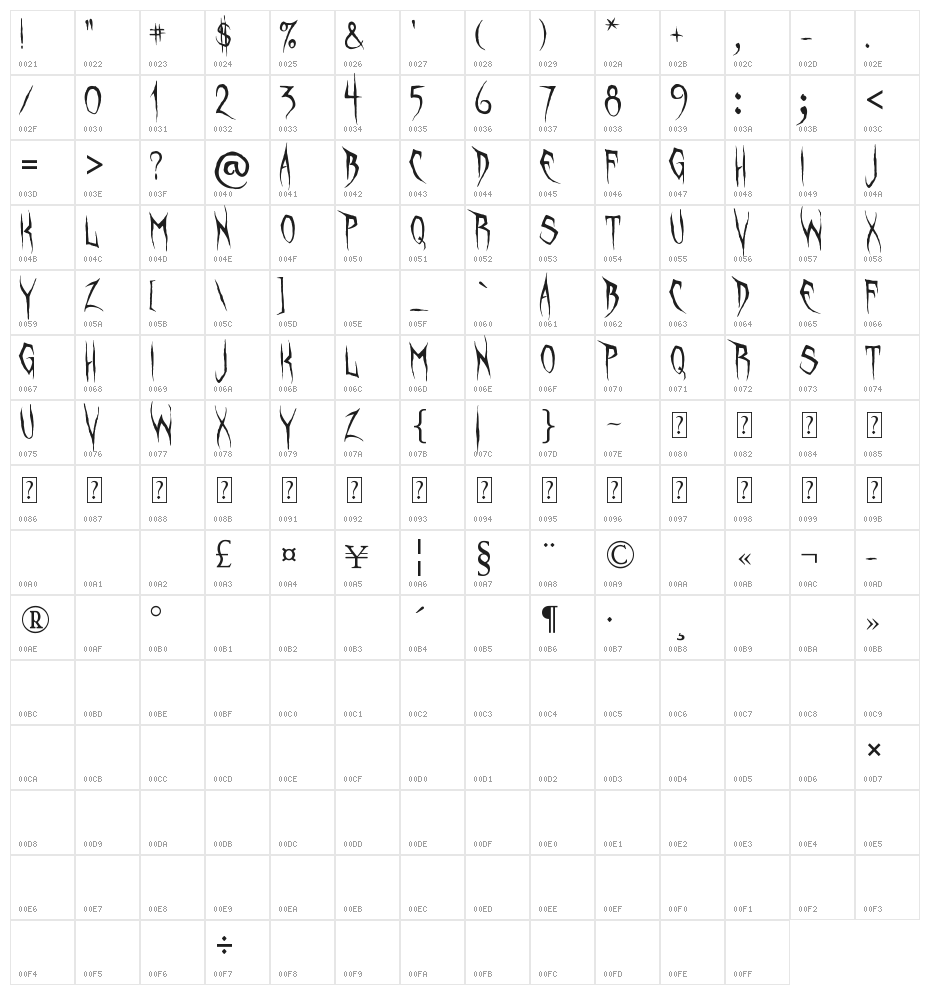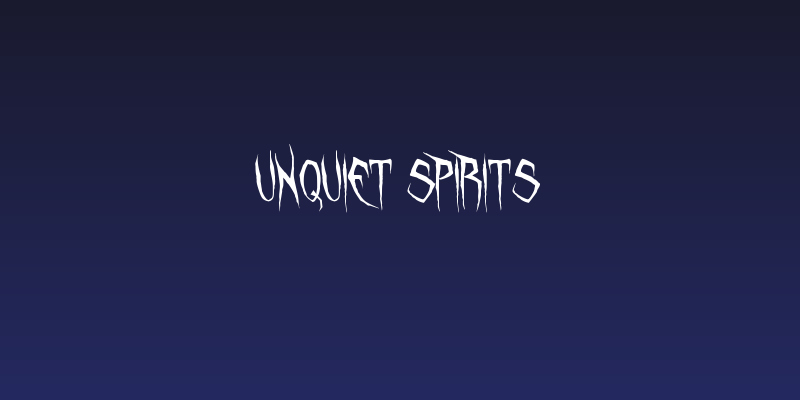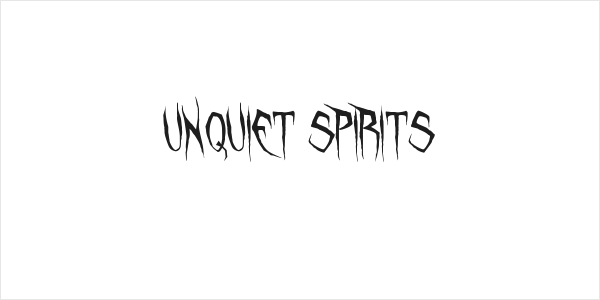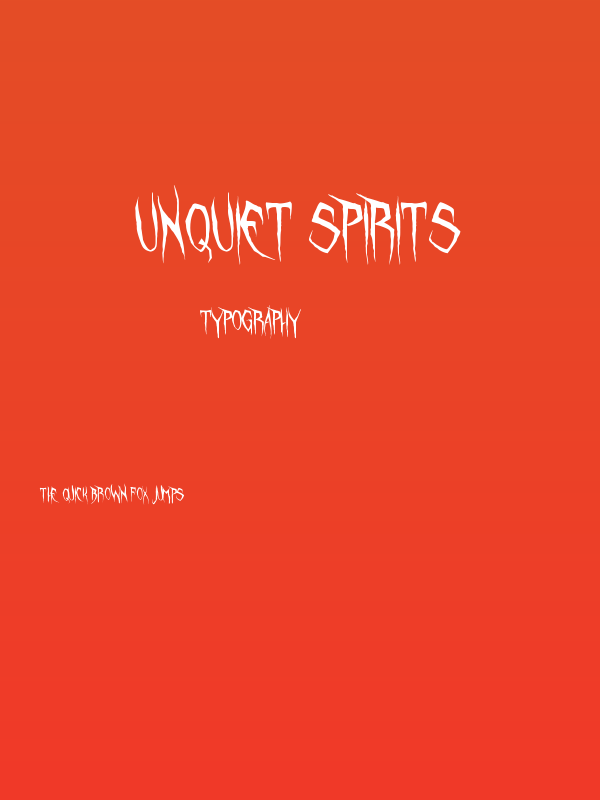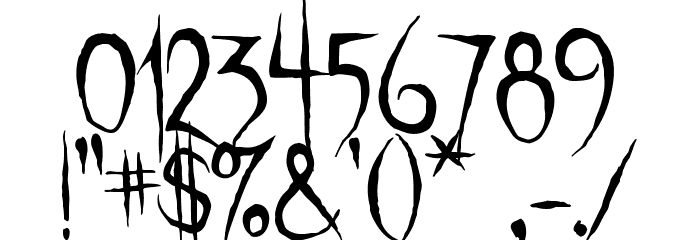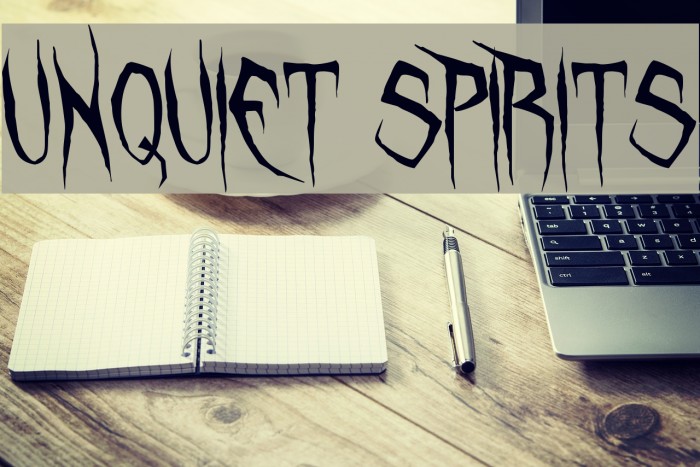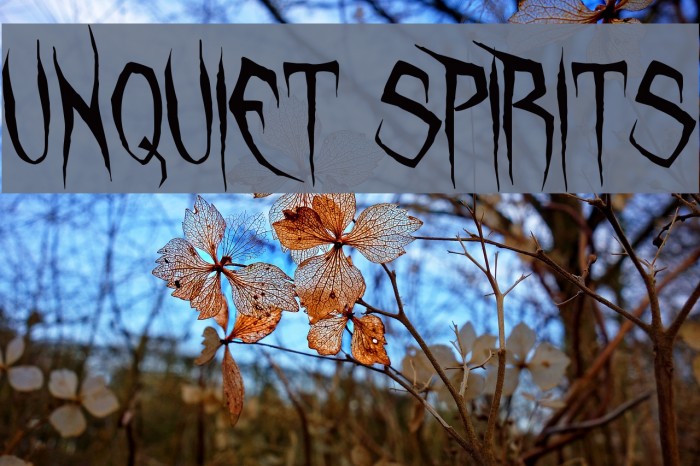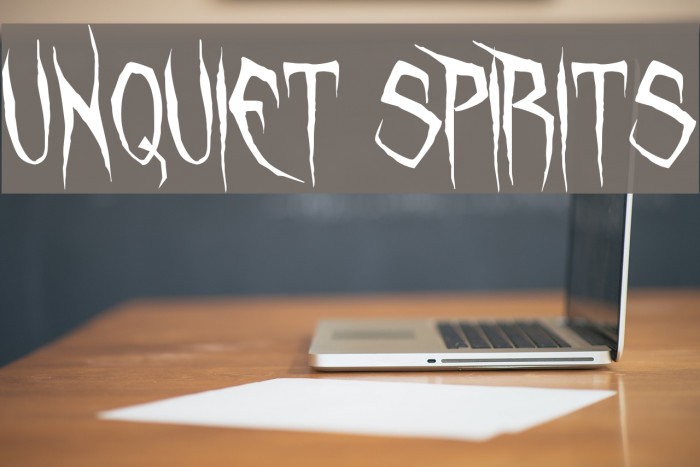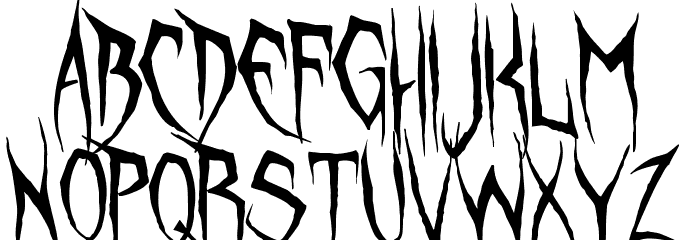
Unquiet Spirits Font
Unquiet Spirits Description
This font features a dramatic and eerie style, characterized by sharp, jagged edges and irregular strokes that evoke a sense of mystery and unease. The uppercase and lowercase letters maintain a consistent height, with elongated verticals and pointed serifs that create a striking visual impact. The numbers and special characters follow the same unsettling aesthetic, making them ideal for projects that require a bold and unconventional look. The overall design is reminiscent of horror or gothic themes, with a hand-drawn quality that adds to its unique charm.
| Overall Style | Gothic, Decorative |
| Proposed Projects | Ideal for horror-themed posters, Halloween invitations, gothic book covers, and video game titles. |